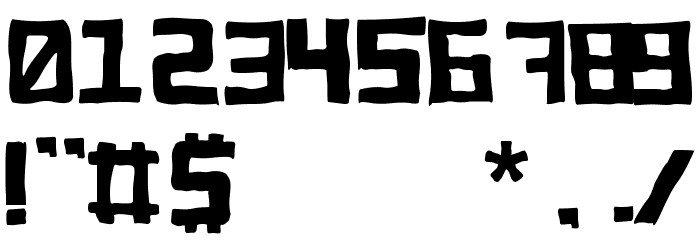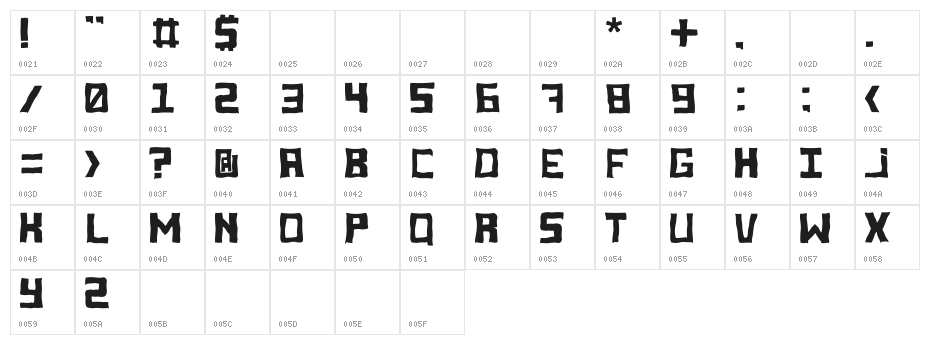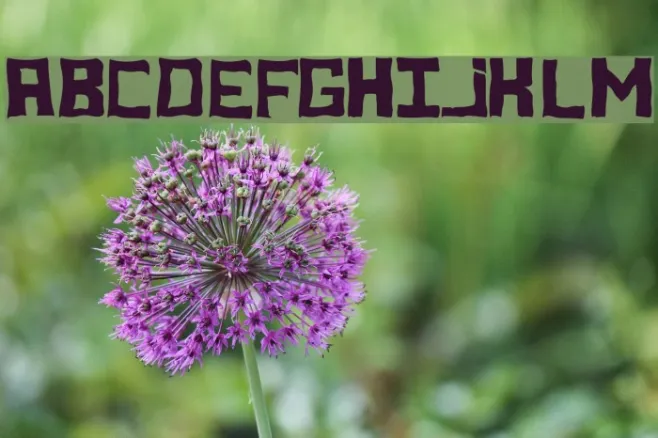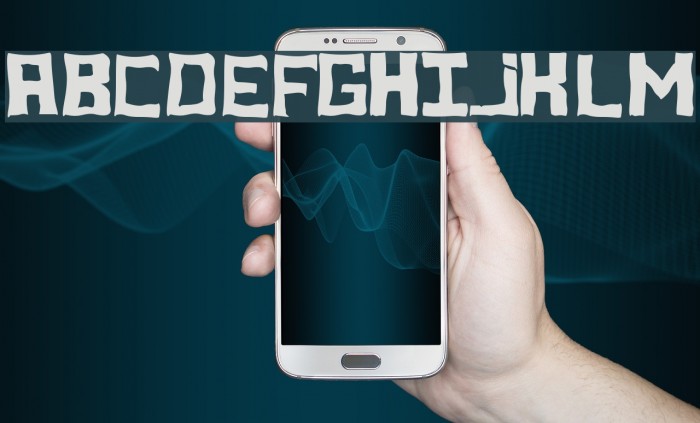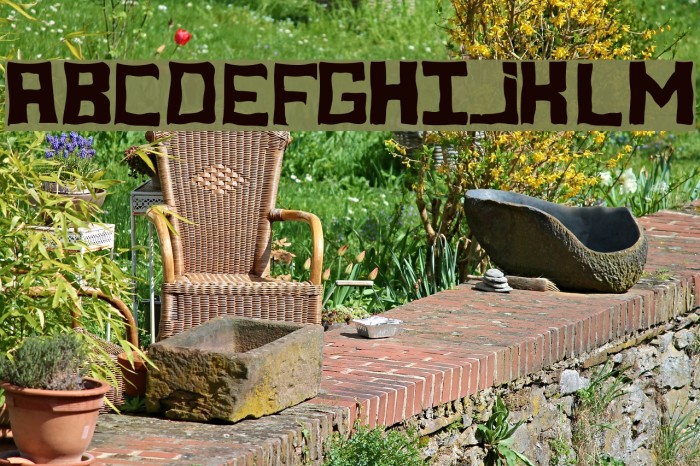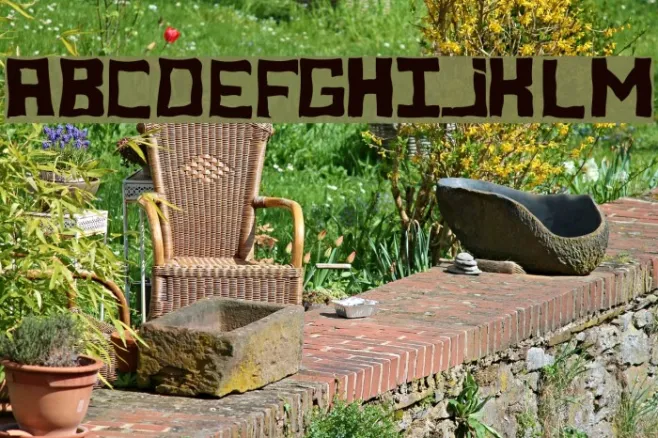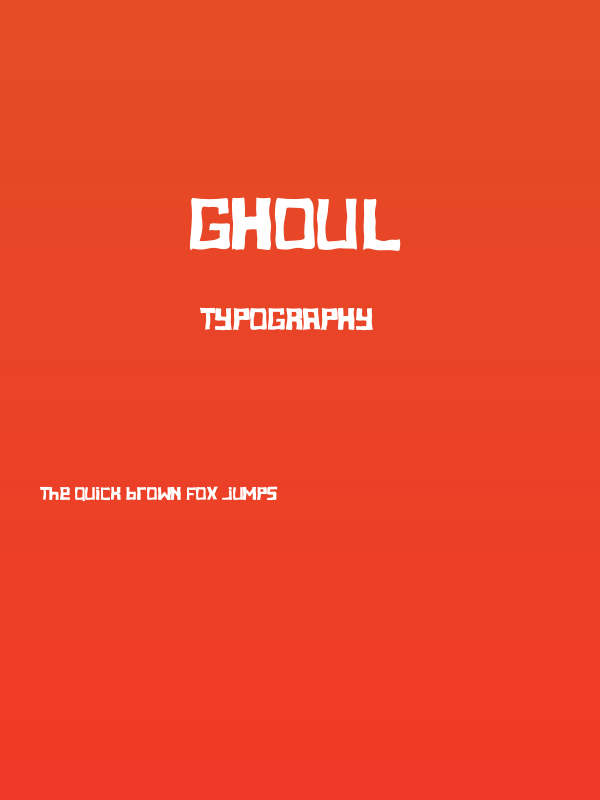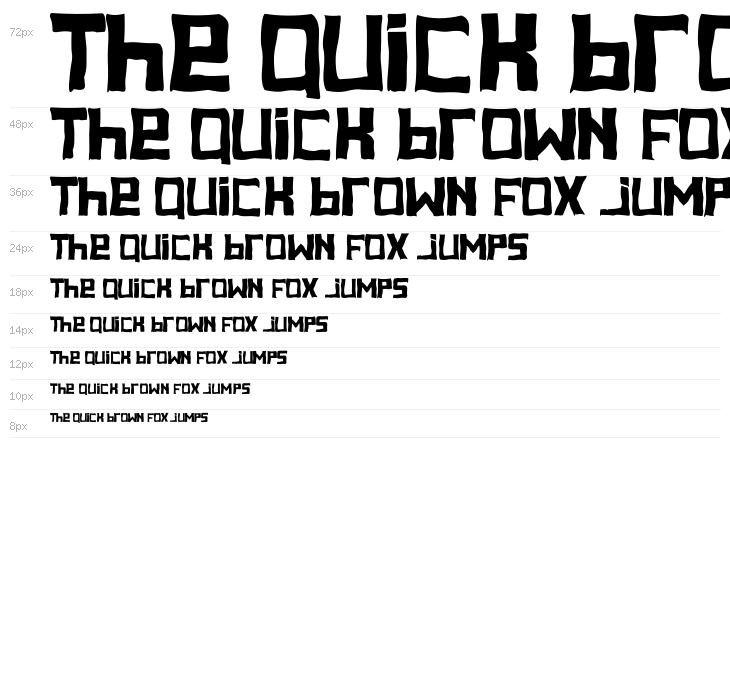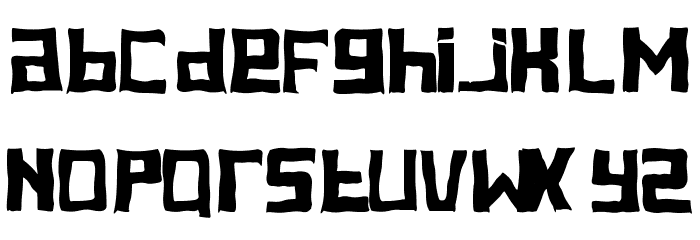
Ghoul Font
Ghoul Description
This font features a bold, rugged style with uneven edges and a hand-drawn appearance, giving it a distinctly eerie and unsettling vibe. The characters are thick and blocky, with a slightly irregular form that adds to the font's unique personality. The uppercase and lowercase letters maintain a consistent weight, while the numbers and special characters follow the same design principles, ensuring a cohesive look across all text. The font's rough texture and bold presence make it ideal for projects that require a dramatic and eye-catching typeface.
| Proposed Projects | Ideal for Halloween-themed designs, horror movie posters, spooky invitations, and graphic novels. |